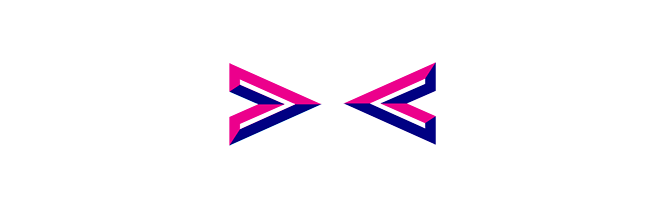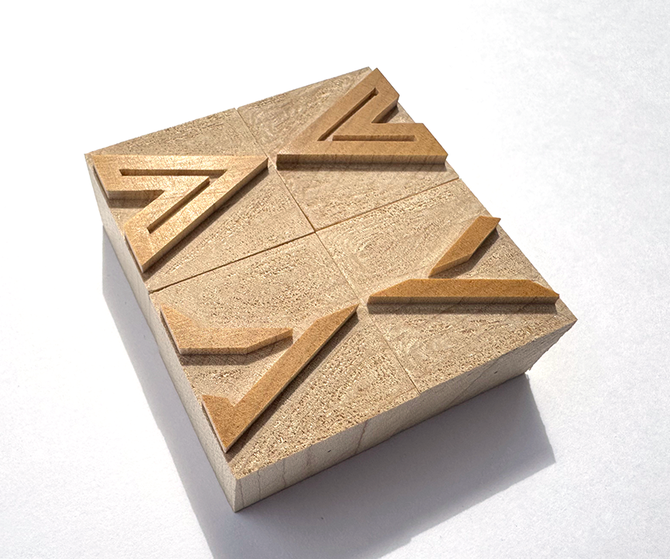
Marquee Pointer
Marquee is an original two-color font designed by James Grieshaber of Virgin Wood Type. This font is a new chromatic based on modernist Gothic type designs. This display font contains uppercase and figures only.